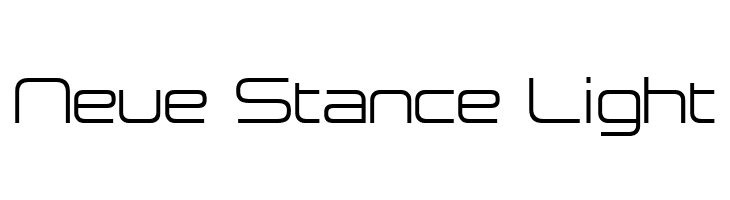
( Fonts by perefect-schraub.jimdosite.com - Personal-use only. For commercial use please contact owner. )
A bold, playful handwritten font with thick strokes and a casual style.
( Fonts by perefect-schraub.jimdosite.com - Personal-use only. For commercial use please contact owner. )
A playful, handwritten brush-style font with bold, consistent strokes.
( Fonts by perefect-schraub.jimdosite.com - Personal-use only. For commercial use please contact owner. )
A playful, hand-drawn font with a casual and informal style.
( Fonts by perefect-schraub.jimdosite.com - Personal-use only. For commercial use please contact owner. )
A playful, handwritten font with irregular strokes and a casual style.
( Fonts by perefect-schraub.jimdosite.com - Personal-use only. For commercial use please contact owner. )
A playful, handwritten font with a casual and informal style.
( Fonts by perefect-schraub.jimdosite.com - Personal-use only. For commercial use please contact owner. )
A playful, hand-drawn font with a whimsical and informal style.
( Fonts by Maulana Creative )
A delicate, flowing script font with elegant, interconnected strokes.
( Fonts by Letterara )
A stylish, elegant handwritten font with fluid, continuous strokes.
( Fonts by epiclinez )
A playful, whimsical font with flowing, cursive-like strokes and unique character shapes.
( Fonts by Integritype Studio )
A graceful and fluid script font with elegant cursive letters.
( Fonts by Letterena Studios )
A flowing, cursive font with elegant, sweeping strokes and a sophisticated appearance.
( Fonts by Ianmikraz )
An elegant script font with flowing, handwritten-style characters.
( Fonts by Gede Sugiantara )
A fluid, elegant handwritten font with smooth, connected strokes.
( Fonts by Letterena Studios )
A fluid and elegant cursive script with a handwritten appearance.
( Fonts by RantautypeStudio )
An elegant font with flowing swashes and sophisticated curves.
( Fonts by RantautypeStudio )
A lively, cursive handwritten font with fluid, connected letters.
( Fonts by NihStudio )
A sophisticated cursive script font with a fluid, handwritten style.
( Fonts by Eddy Goodboy )
A playful and dynamic handwritten font with fluid strokes.
Tra i preferiti recenti: Poppins, Roboto, Montserrat, Open Sans e Lato. Bilanciano chiarezza e personalità; ideali per brand tech, editoriali e social.